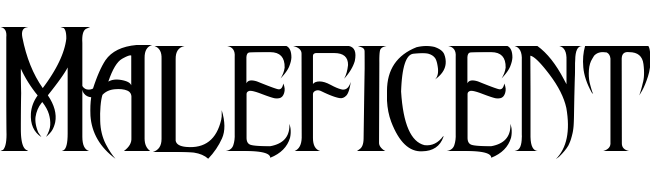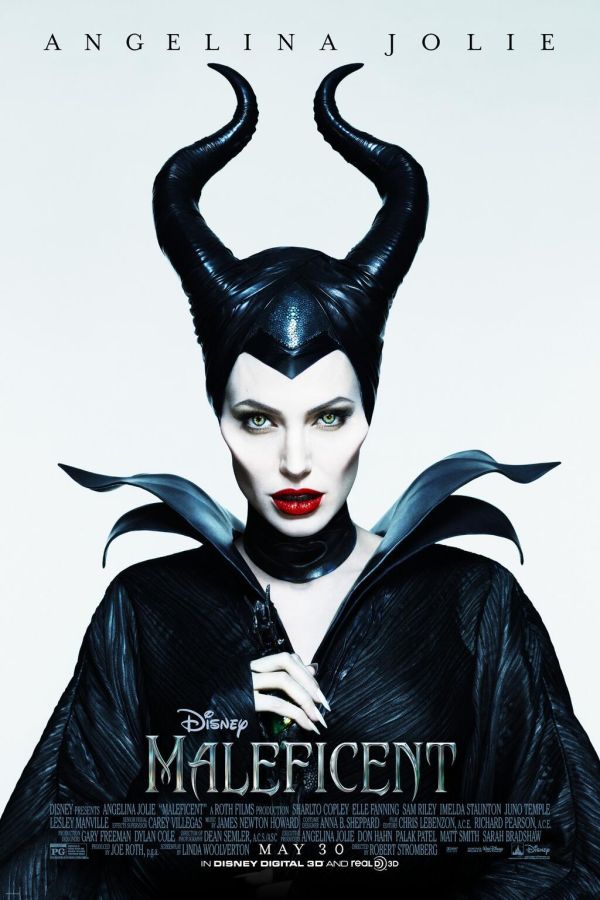
Maleficent Font
FantasyMaleficent is a 2014 Disney movie that retells the classic "Sleeping Beauty" story from the perspective of the villainous Maleficent, exploring her backstory and motivations. Angelina Jolie stars as Maleficent, with Elle Fanning playing Princess Aurora.
The movie title "Maleficent" uses a gothic font that resembles PentaGram's Malefissent, available for free download in uppercase letters and with limited punctuation marks in the Fonts Used Section.